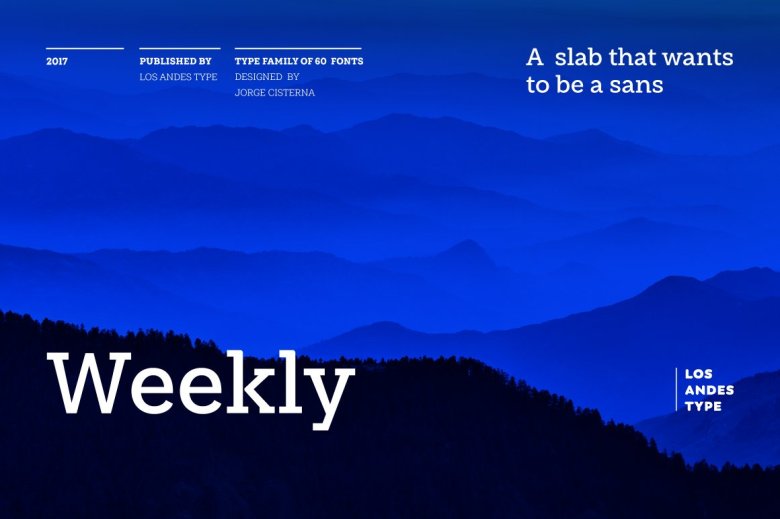
Weekly Font Family
If you are in need of a slab serif font for your project, this is a perfect choice. Introducing Weekly Font Family! Weekly designed by Los Andes. The font was created under the premise that it can be used as a sans: a fresh design without that retro feel typical of slab fonts. As a result, we developed an Egyptienne font—more simple compared to others of its kind, a feature that gives it its unique personality.
Weekly Font Family